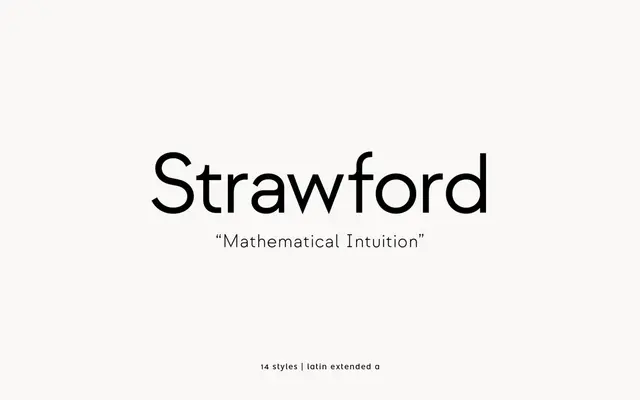
Strawford
Strawford specimen from atipo foundry
A geometric sans from atipo across seven weights with matching italics, sitting near Avenir and Gilroy with a touch more warmth.
Strawford is a geometric sans from atipo foundry built across seven weights from Thin to Black with matching italics, fourteen styles in total. The construction is clean and circular but softens the strict geometric model with slightly humanist proportions, giving it more warmth than a pure geometric for branding and product work. A solid choice for app interfaces, marketing sites, decks and editorial layouts where you want a friendly, contemporary sans with enough weight range to handle hierarchy on its own.
A geometric sans across seven weights from Thin to Black with matching italics. Sits in the same neighbourhood as Avenir and Gilroy, with slightly more humanist warmth.